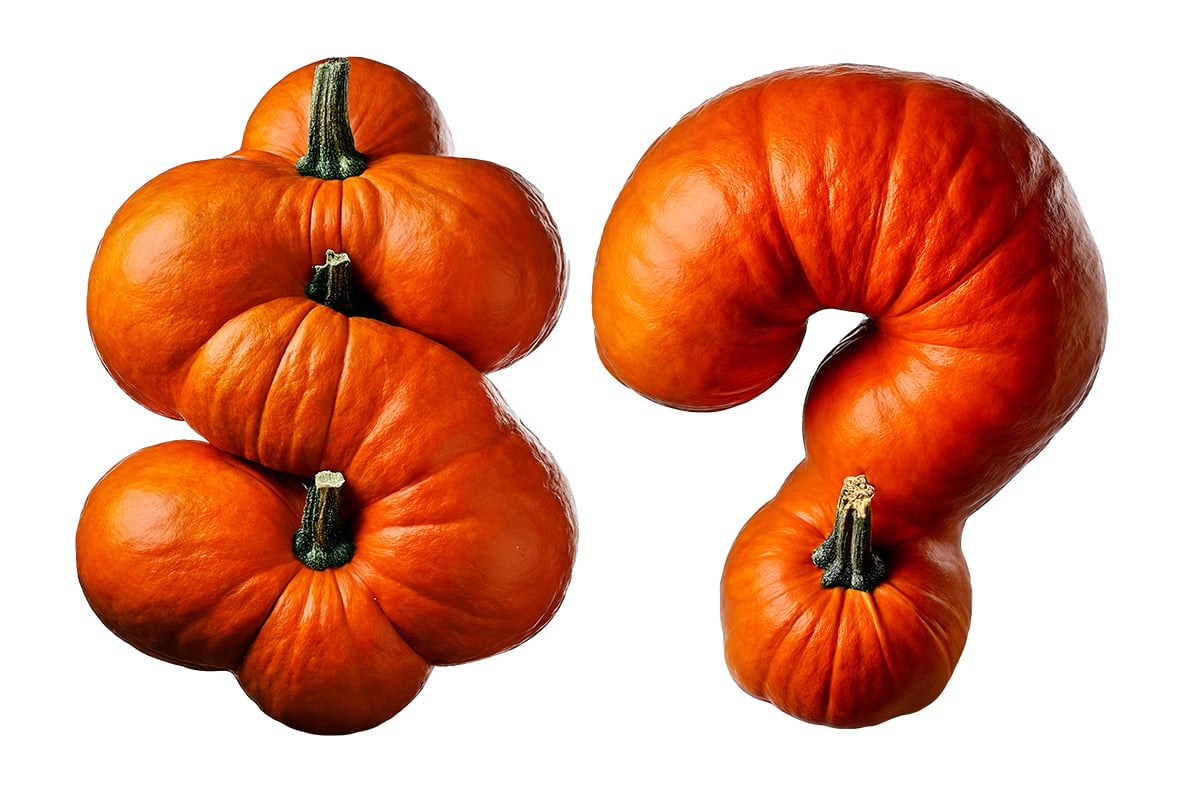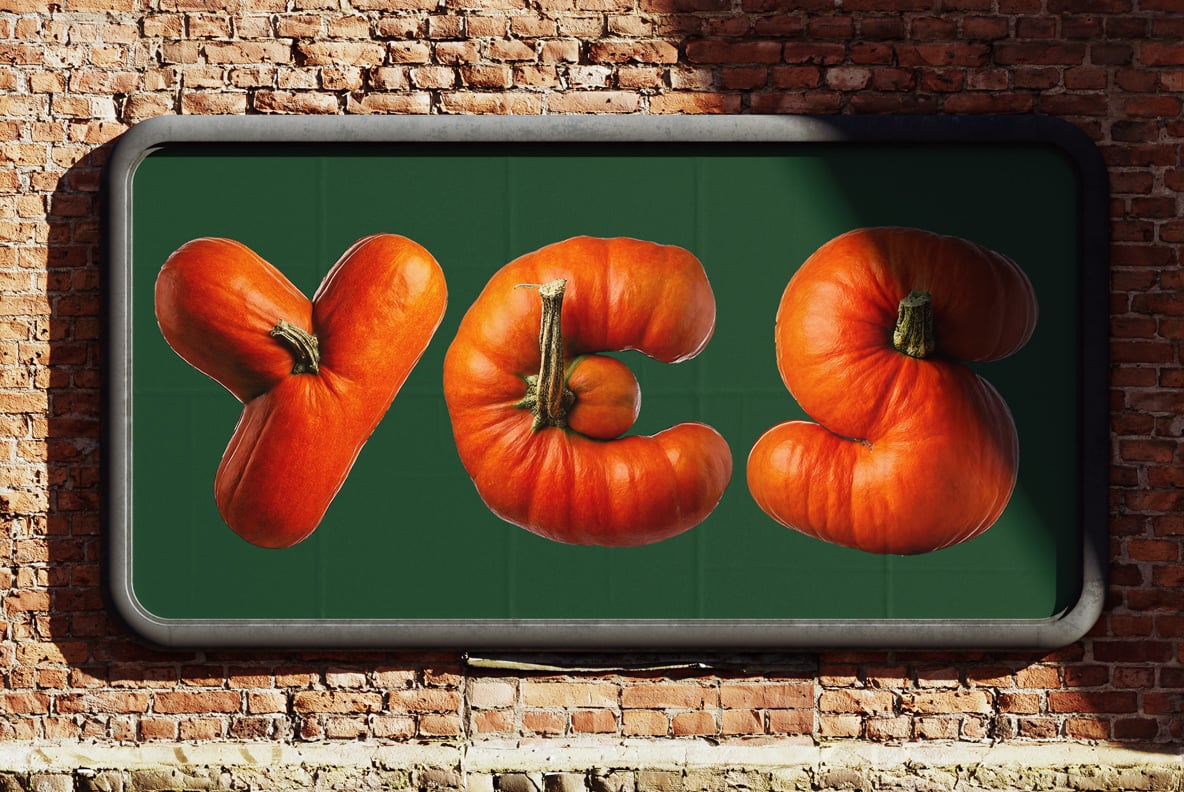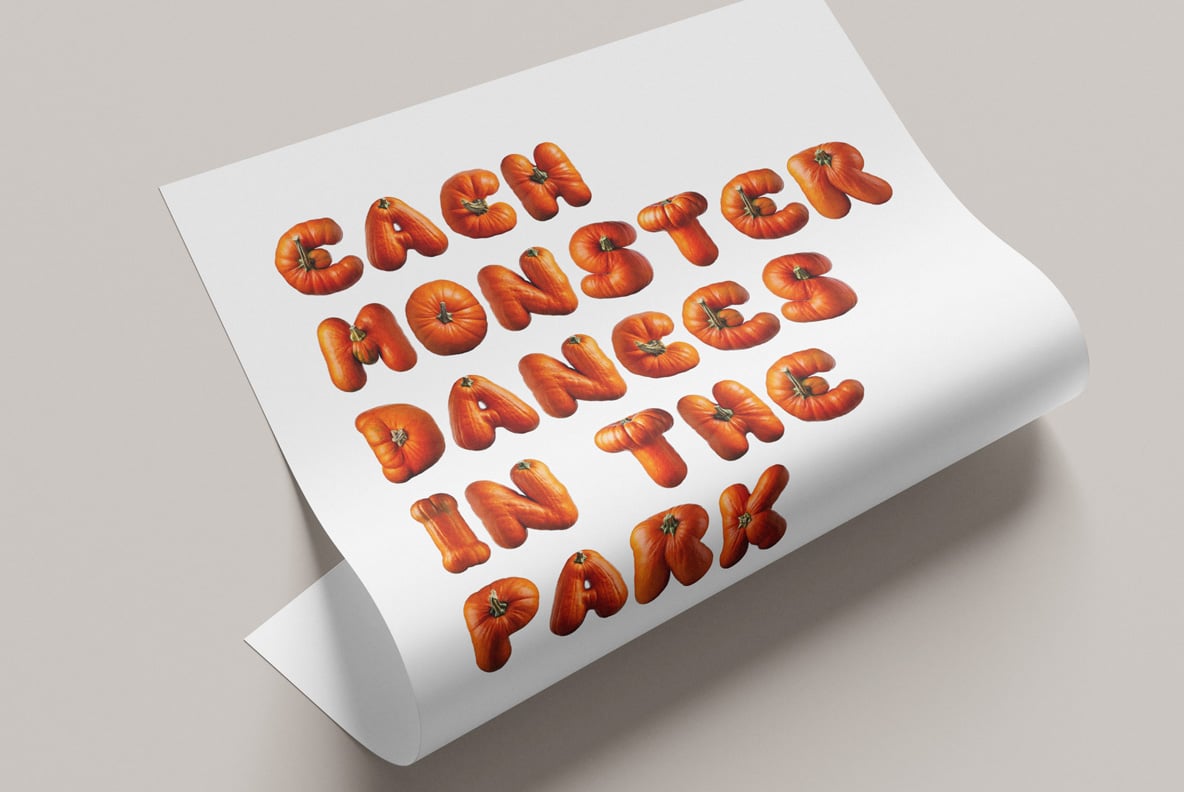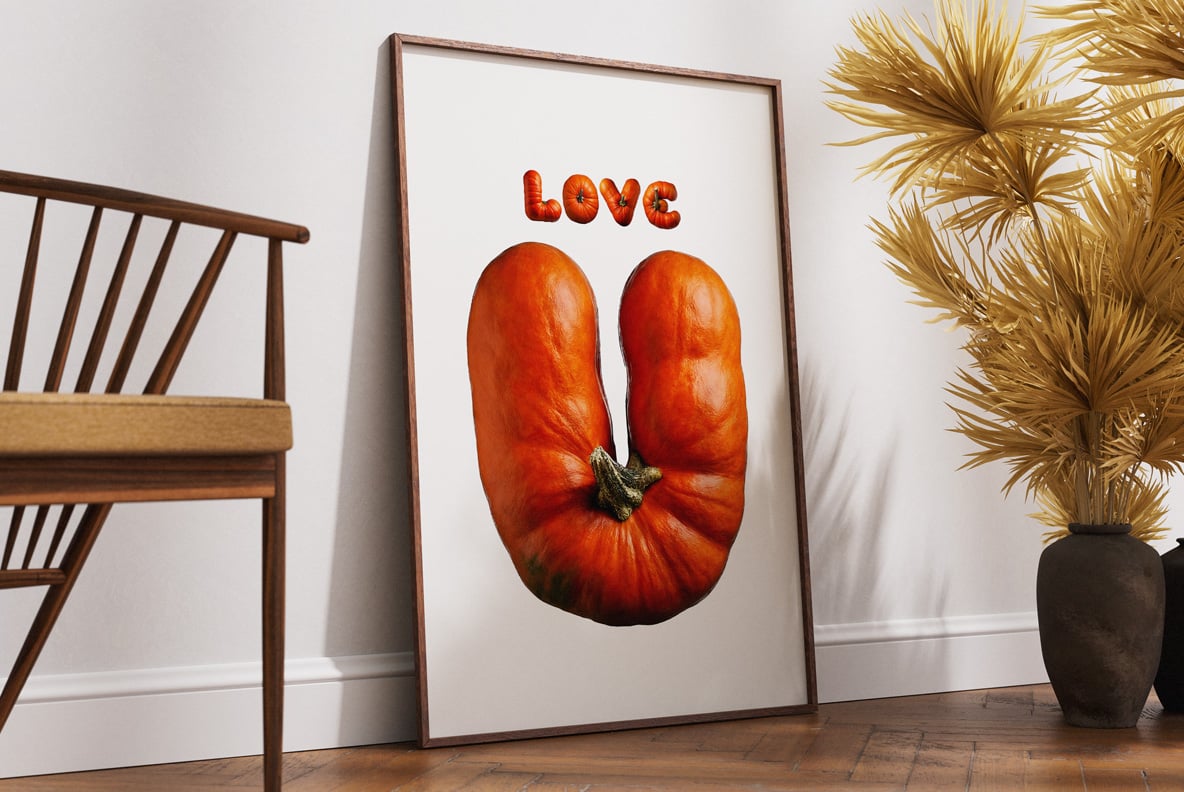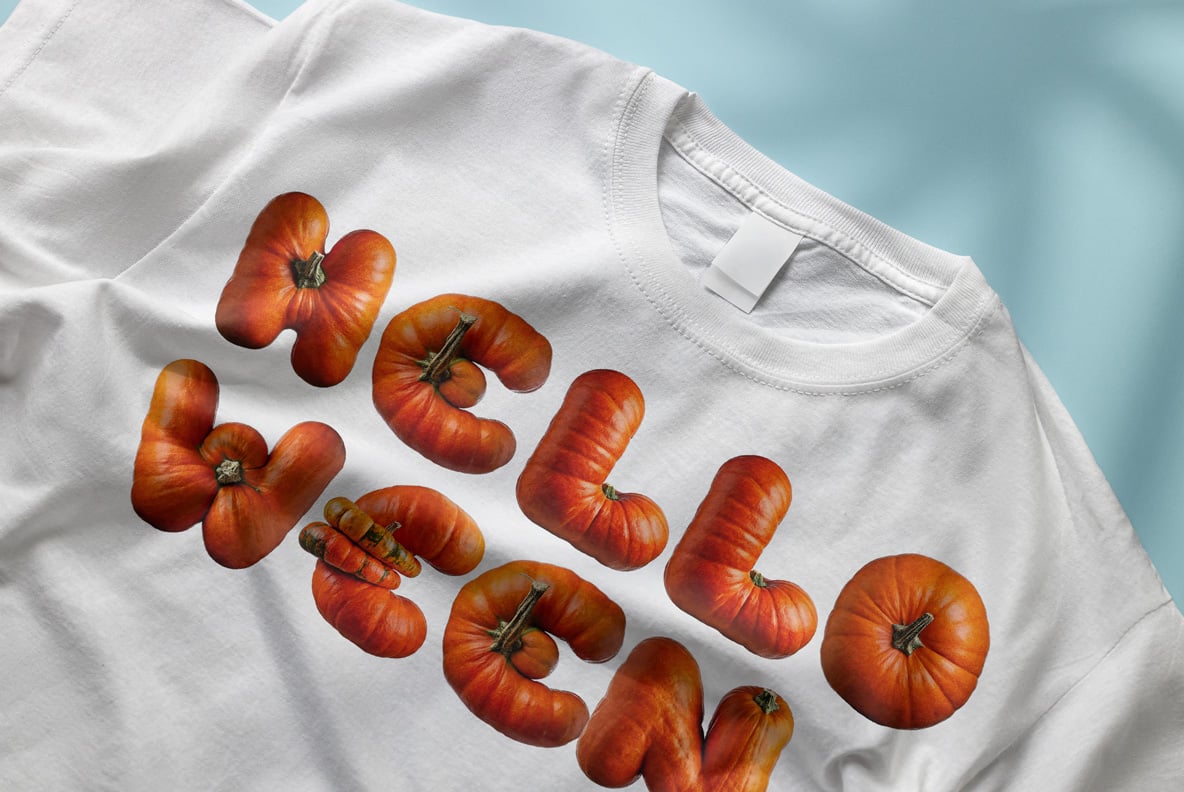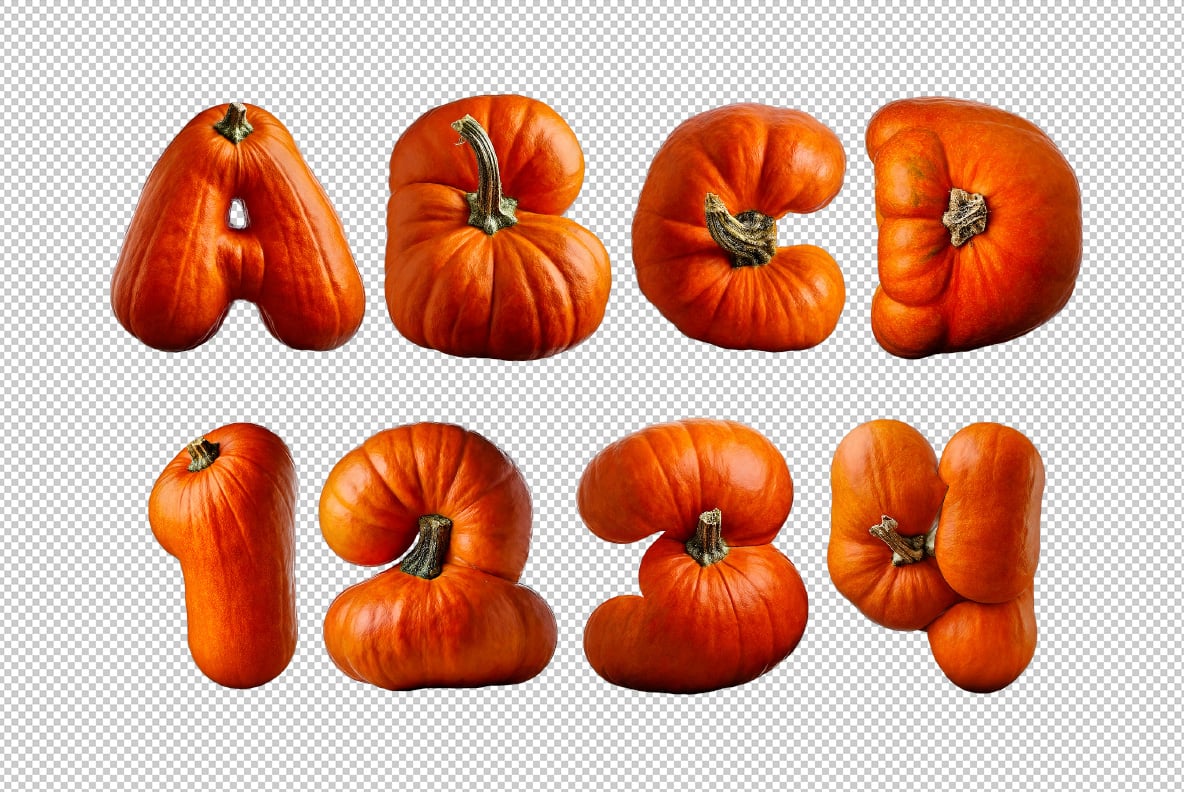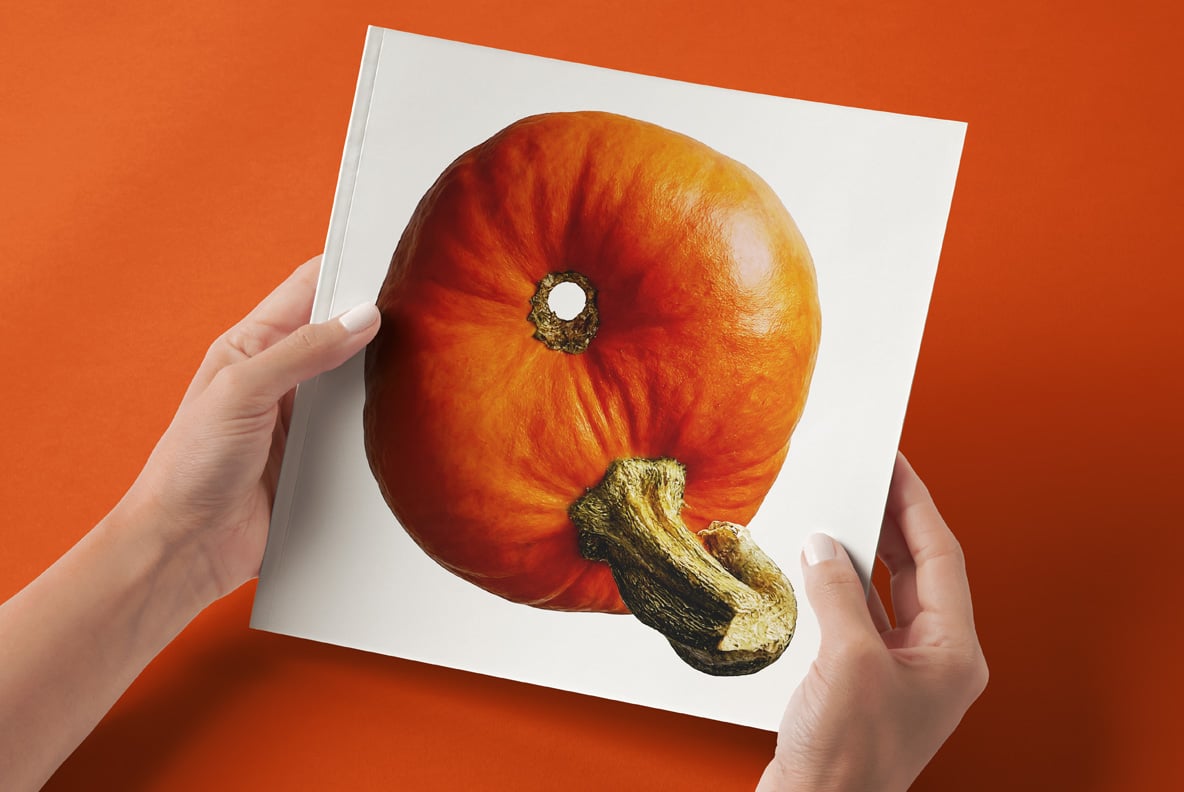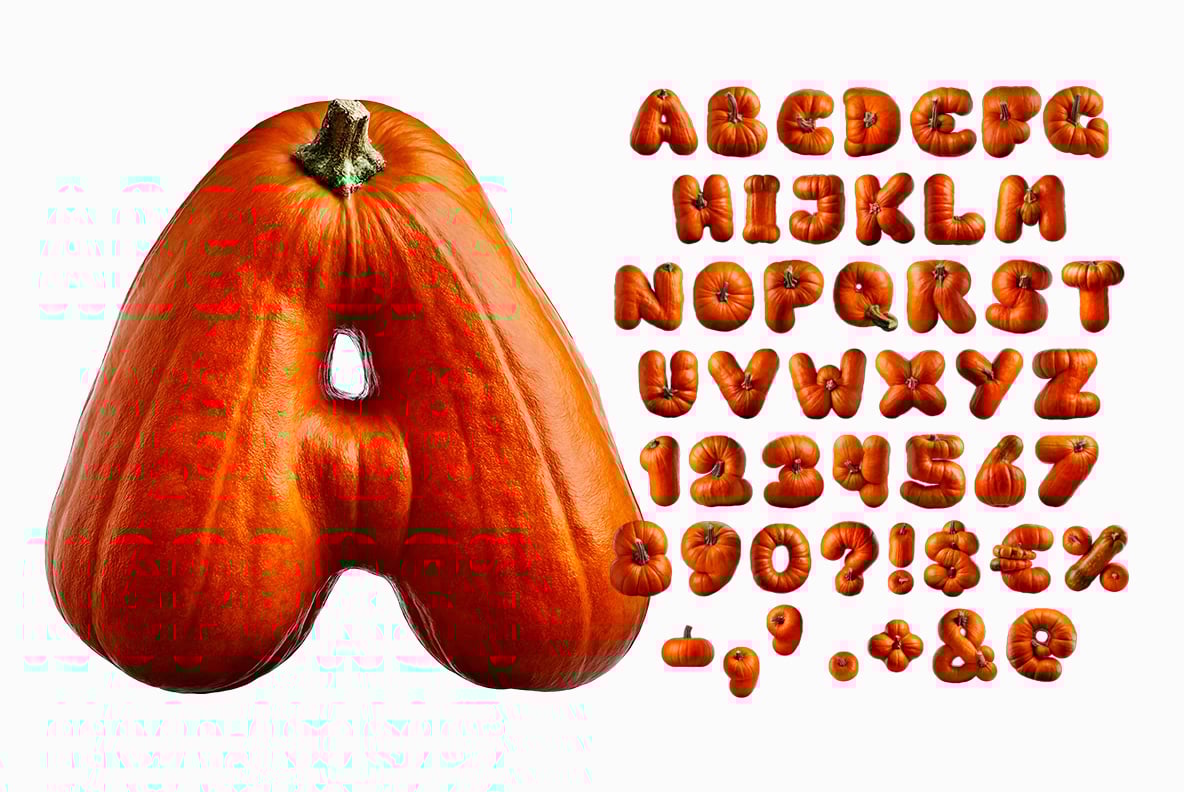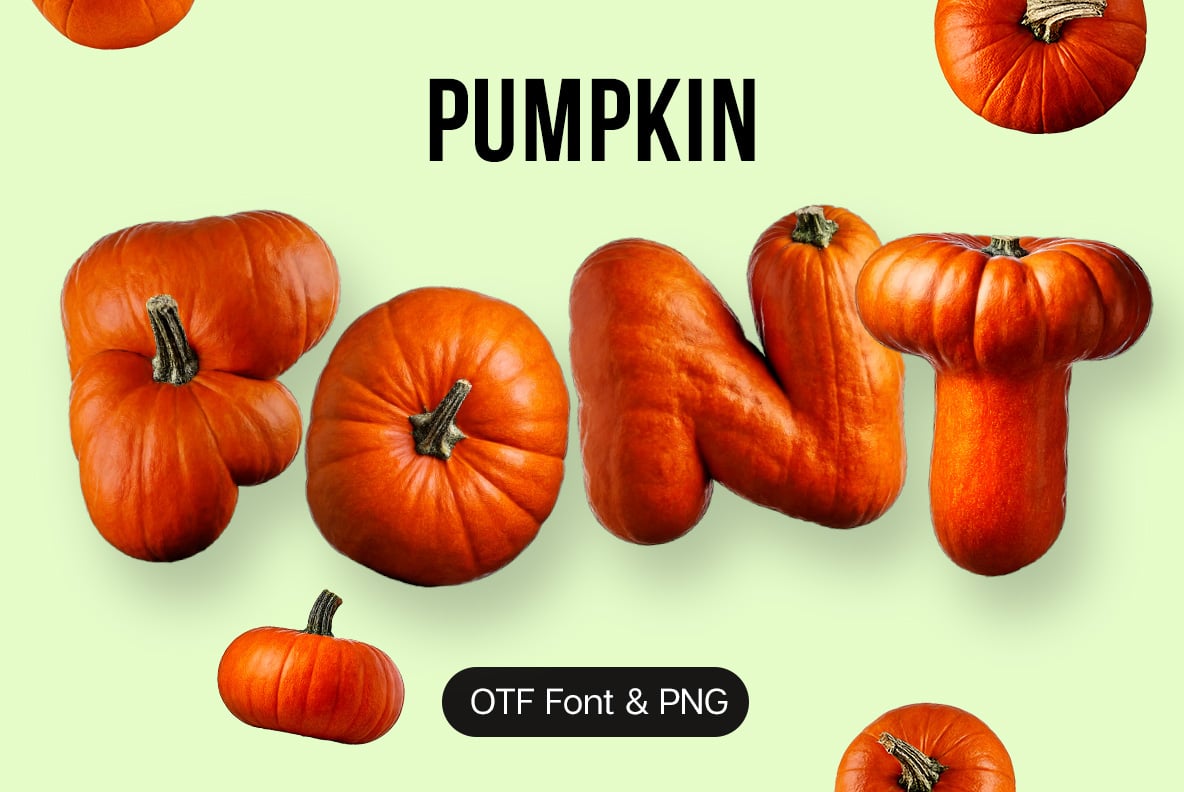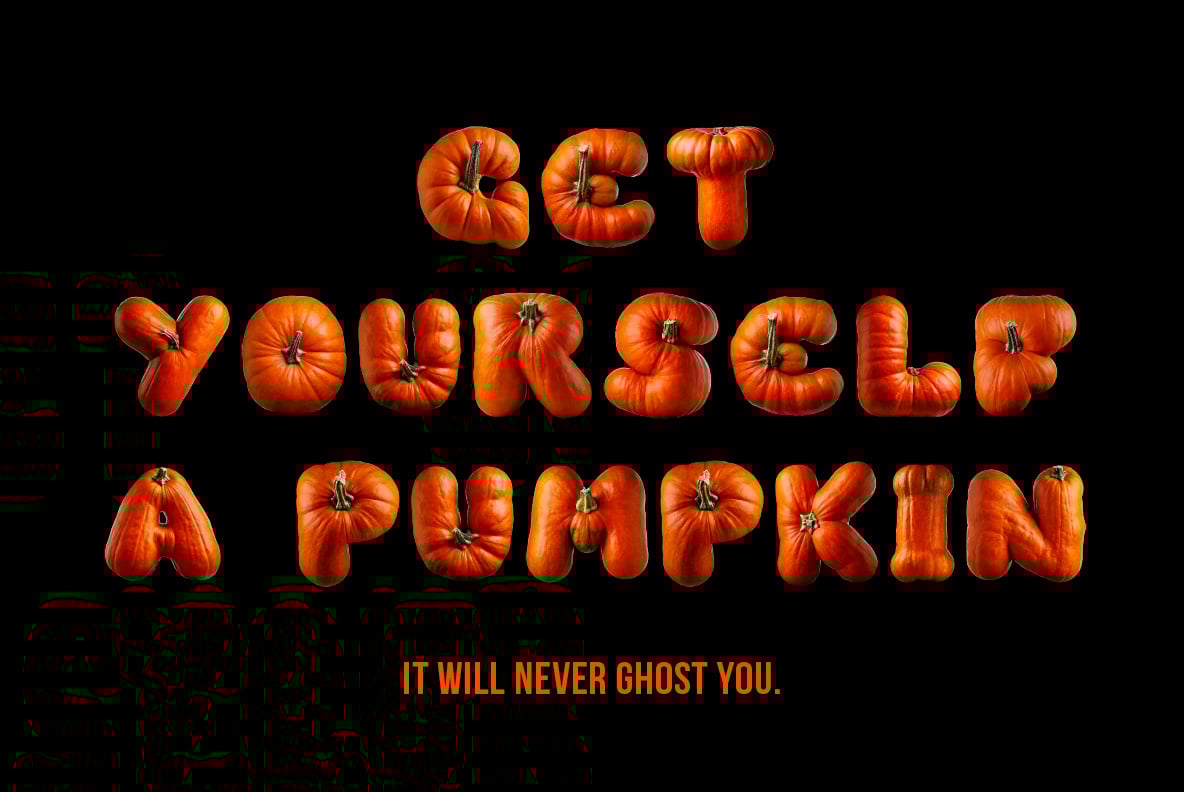
Pumpkin Font
Pumpkin Font is a playful, Halloween-inspired typeface crafted from the essence of pumpkins. Each letter in this unique vegetable font embodies the charm of carved pumpkins, perfect for adding a spooky, seasonal touch to your designs. Ideal for Halloween-themed projects, party invites, posters, and creative art, this pumpkin alphabet brings a festive and fun flair to any design, capturing the spirit of autumn in every letter.
A high definition OpenType Font. Contains uppercase characters, numerals and basic punctuation. (Draw height roughly 800 pixels). All letters and glyphs that comprises this font you can see on the preview.
Others : ! ? - . ' $ € % @ &